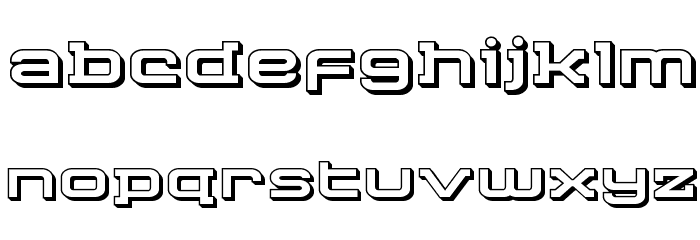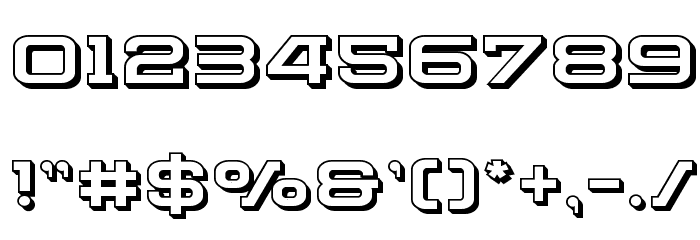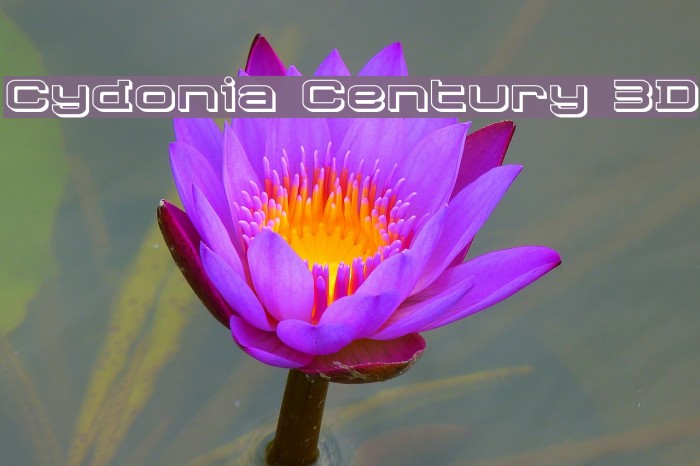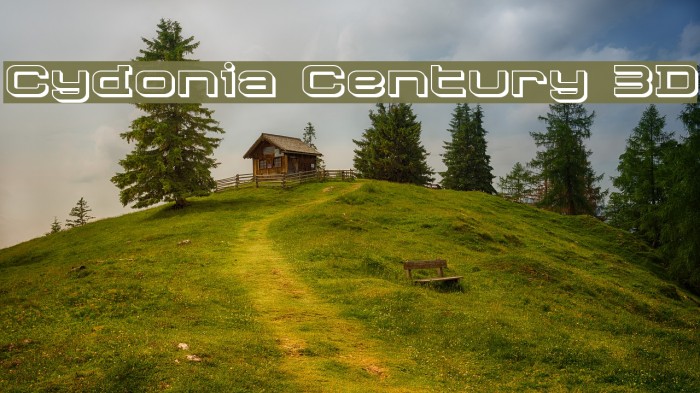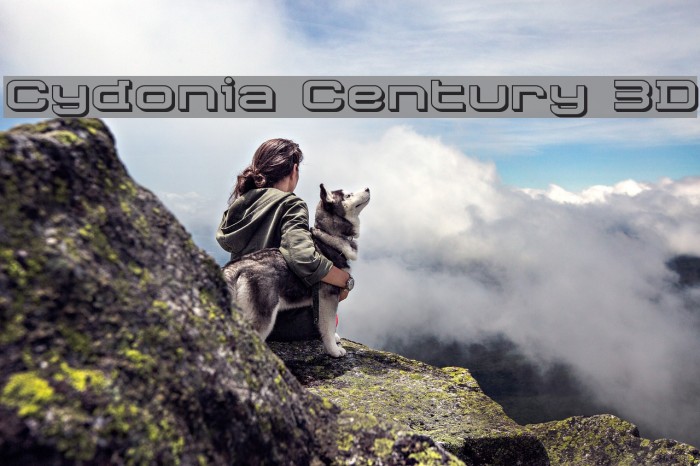
Cydonia Century 3D Font
This font features a bold and dynamic 3D effect, giving each character a sense of depth and dimension. The uppercase and lowercase letters are designed with a consistent geometric style, characterized by clean lines and sharp angles. The numbers and special characters maintain this cohesive look, ensuring versatility across various uses. The font's unique outline adds a modern and futuristic touch, making it stand out in any design. Its structured appearance is both eye-catching and readable, suitable for projects that require a strong visual impact.
A bold, 3D geometric font with a modern outline style.
- Proposed Projects: Ideal for posters, logos, video game graphics, and futuristic-themed designs.